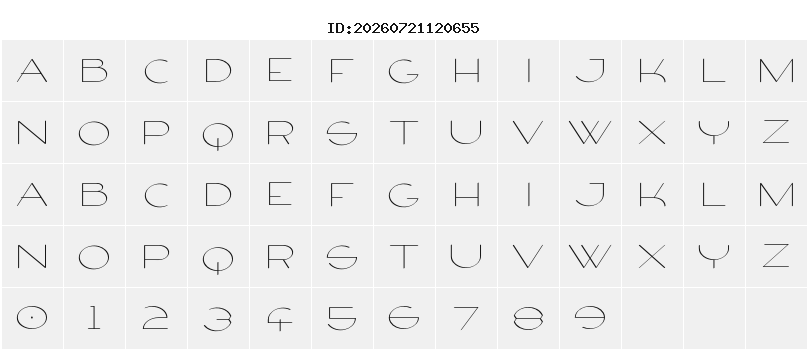
Firty Preview
• Font Name: Firty
• Designer: Dominik Krotscheck
• Manufacturer: Dominik Krotscheck
About Firty.otf
Firty.otf is a modern, elegant sans-serif font designed for ultimate readability and visual harmony. Perfect for branding, headlines, web design, and print materials.